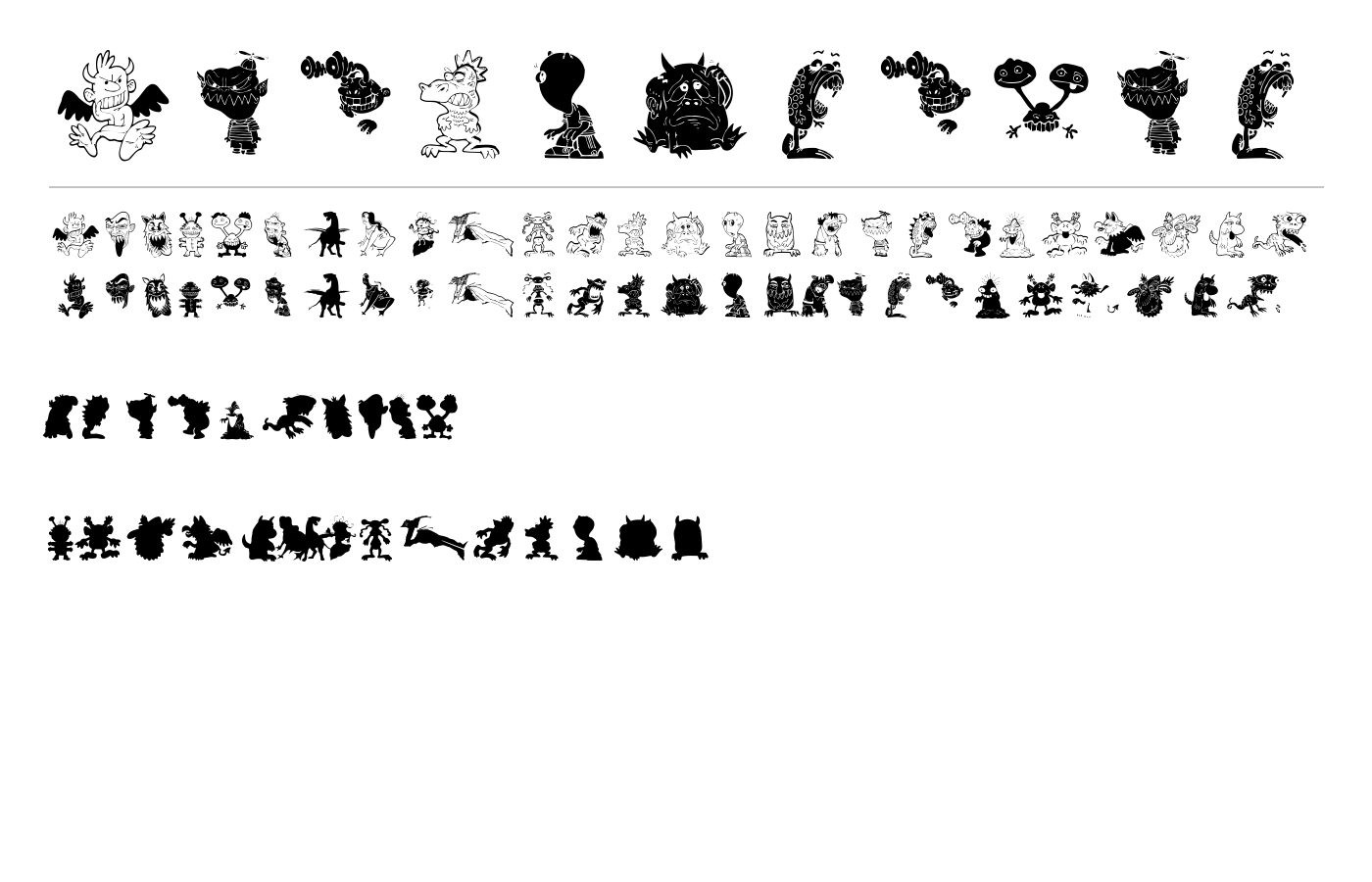
ArtMonsters Font is a playful and whimsical display typeface characterized by quirky, cartoon-like monster illustrations instead of traditional letterforms. Its bold, highly detailed, and imaginative shapes create a fun and eye-catching style perfect for children’s books, creative branding, or any project seeking a lively and unconventional look that sparks curiosity and joy.
ArtMonsters Font
About ArtMonsters Font